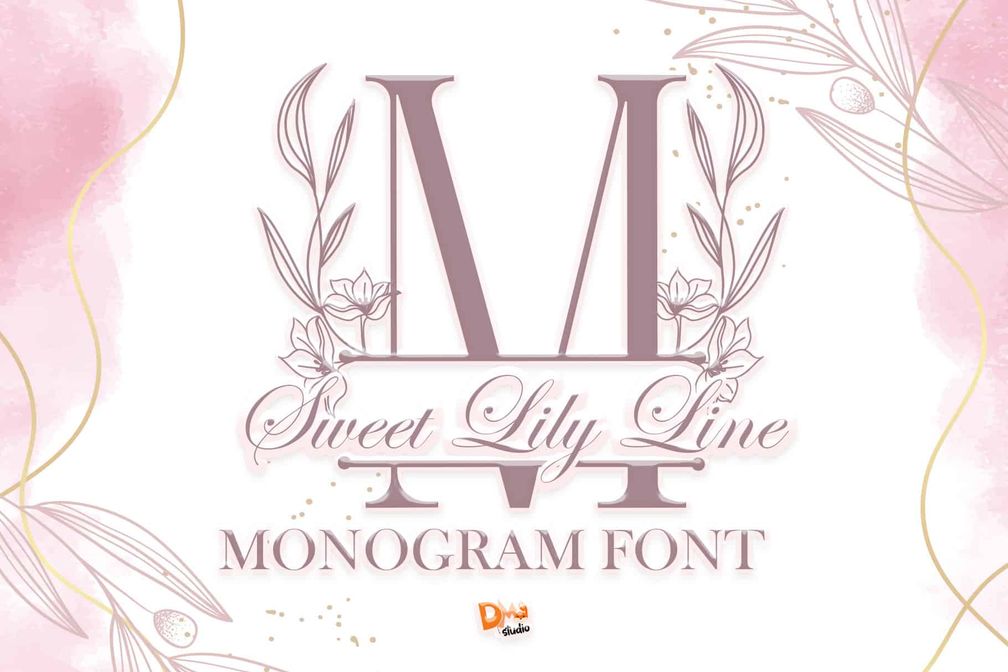
Sweet Lily Line Monogram
Sweet Lily Line Monogram – Elegant & Floral Line Monogram Font
Sweet Lily Line Monogram is a sophisticated and delicate monogram font featuring fine line details inspired by the beauty of lilies. This graceful typeface is perfect for wedding invitations, luxury branding, personalized stationery, boutique packaging, and artistic monogram designs. With its intricate floral accents and refined aesthetic, it adds a timeless elegance to any project.
• Floral & Delicate Line Art Design: Beautiful monogram letters with elegant lily-inspired details.
• Perfect for Elegant & Luxury Projects: Ideal for wedding stationery, logos, branding, and personalized gifts.
• Refined & Ornamental Aesthetic: A seamless blend of floral elegance and monogram sophistication.